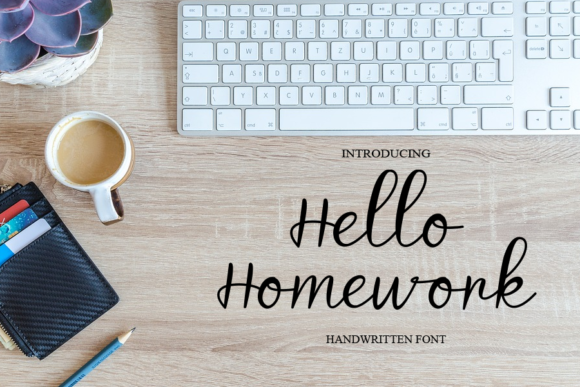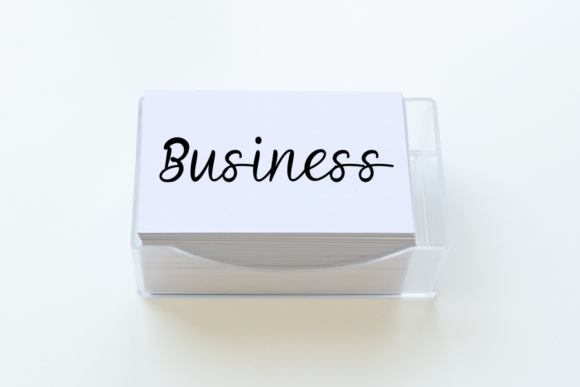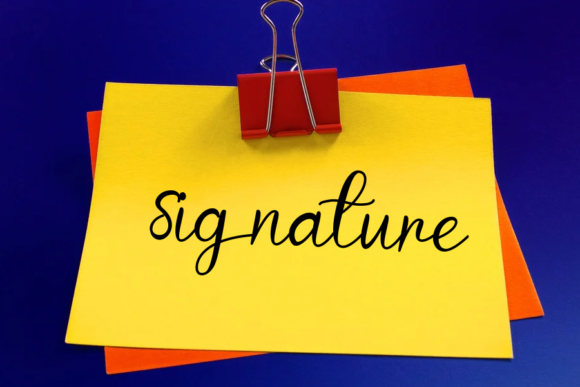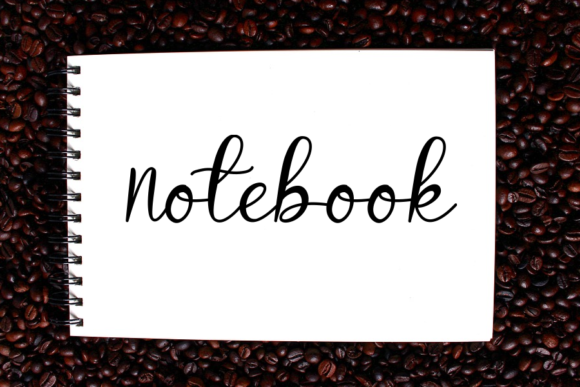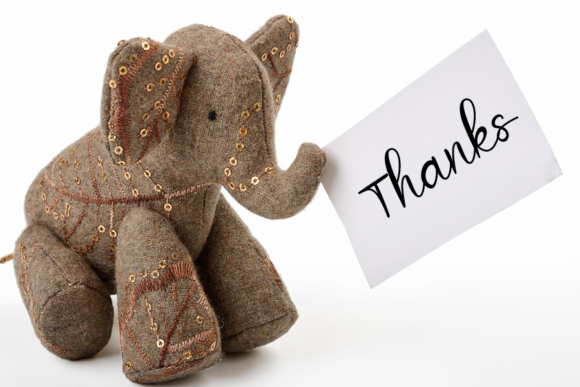
Hello Homework Font
About Hello Homework Font
Hello, Homework is a friendly and elegant handwritten font. With well-rounded letters and a sleek style, this typeface is the perfect choice for invitation letters, wall hangings, weddings, and others!